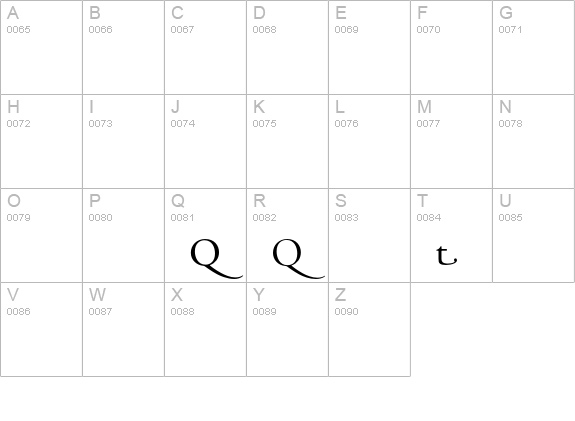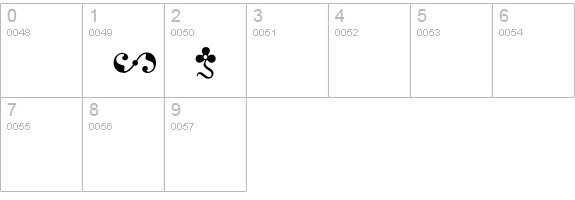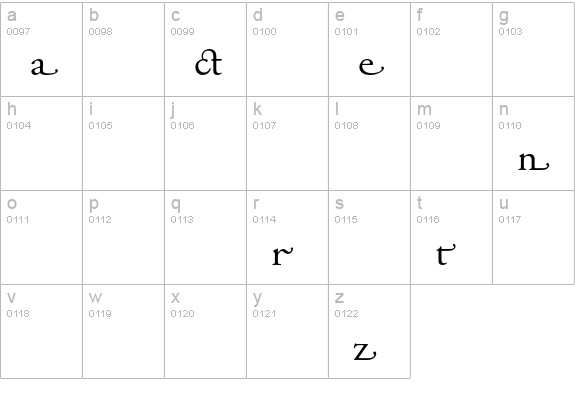
Adobe Garamond Regular Alternate Font Details
Adobe Garamond Regular Alternate is the standard, neutral variant in the Adobe typeface family \xE2\x80\x94 well suited to general body text, paragraphs, and standard typographic work.
Adobe Garamond Regular Alternate is a timeless and sophisticated font that exudes elegance and professionalism. With its classic and refined serifs, this font is perfect for adding a touch of sophistication to any design project. Its balanced letterforms and subtle curvature make it highly legible and versatile for a wide range of applications. The Adobe Garamond Regular Alternate font is now available for free download at FontsMarket.com, making it accessible to designers and creatives looking to elevate their projects with a touch of classic refinement. Whether you're working on a print design, branding project, or digital media, this font will bring a sense of tradition and craftsmanship to your work. Embrace the beauty and timelessness of Adobe Garamond Regular Alternate and see how it can enhance your designs today.